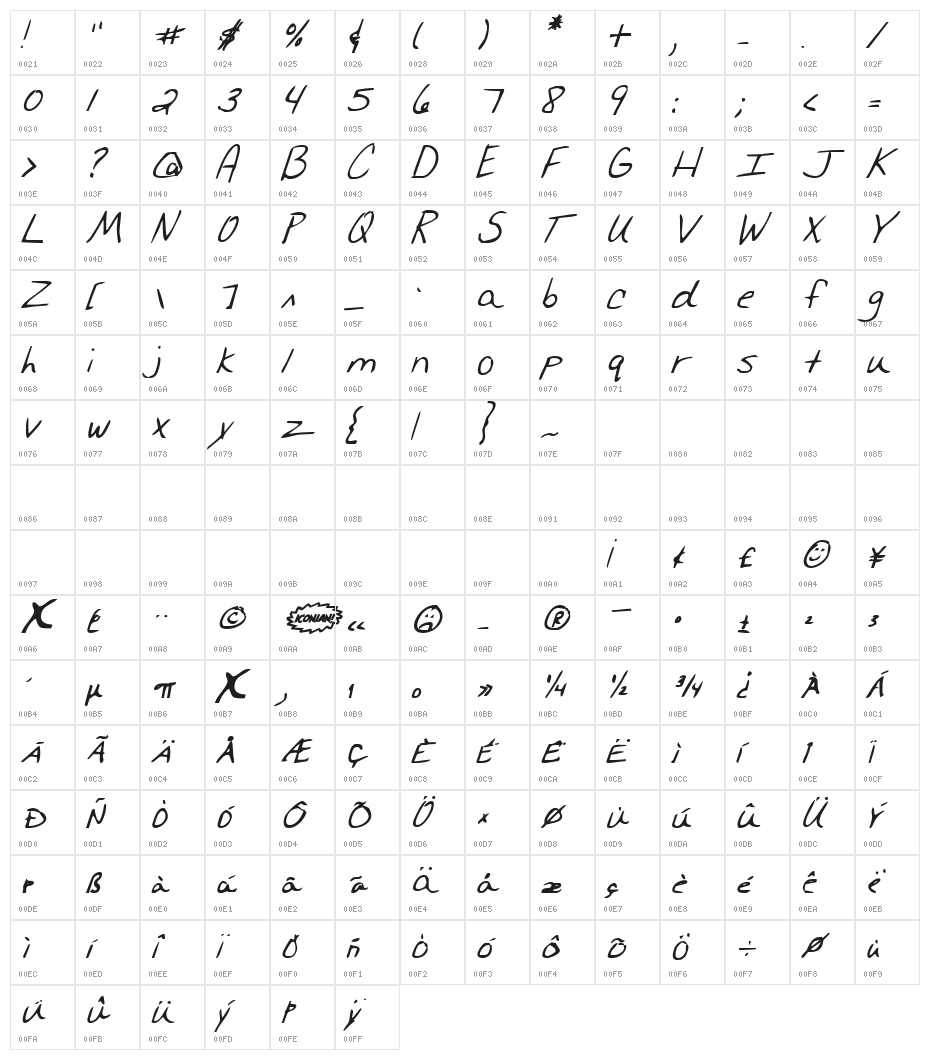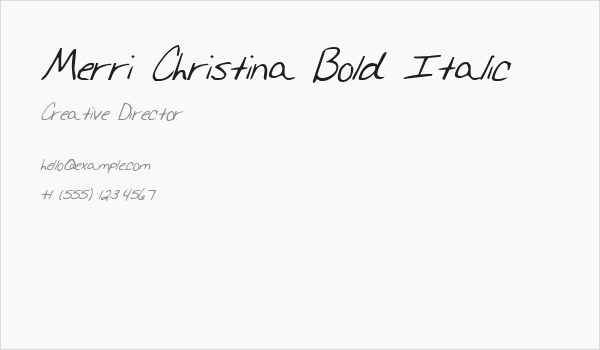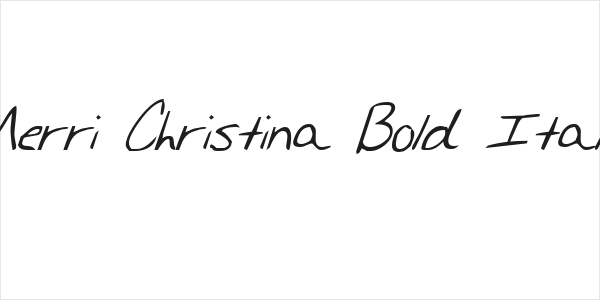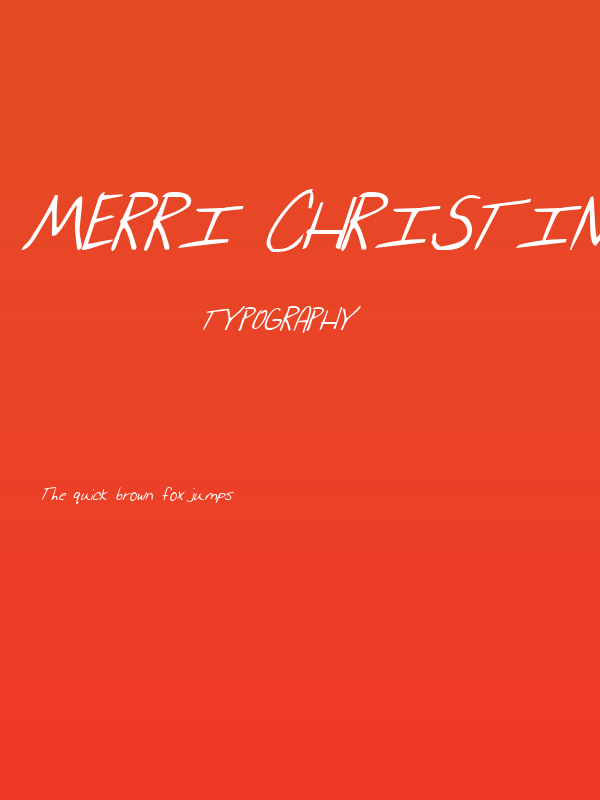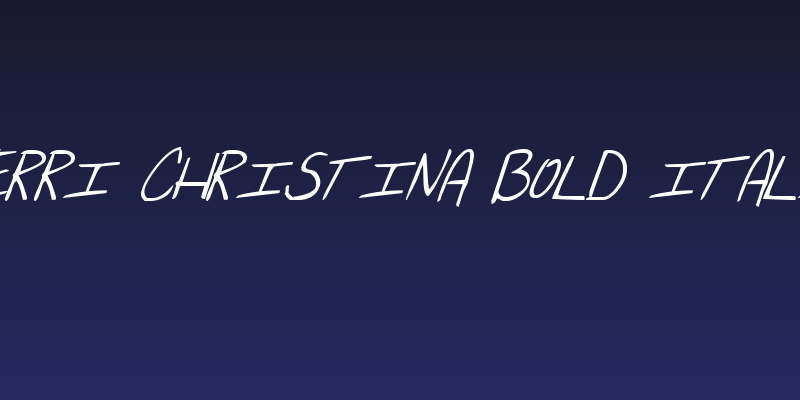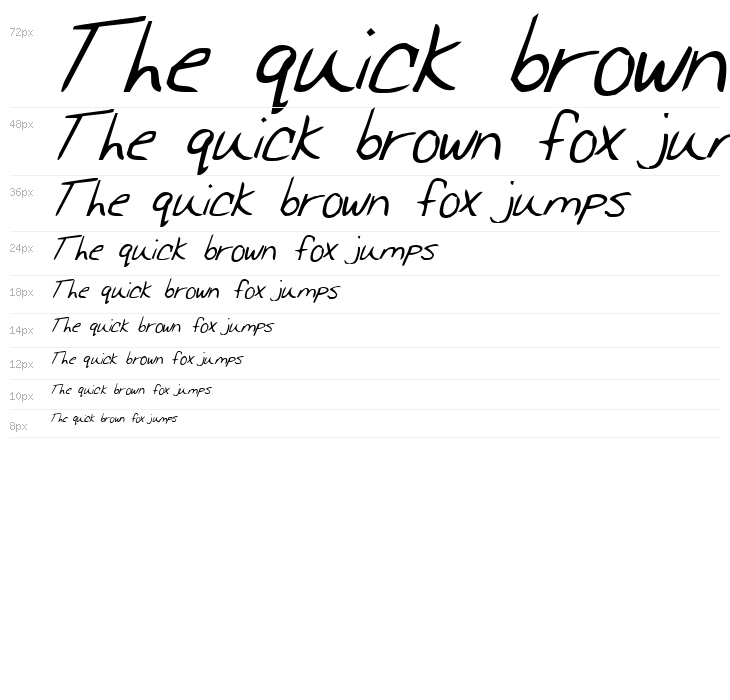
Merri Christina Bold Italic Font
Merri Christina Bold Italic Description
This font exudes a lively and dynamic energy, characterized by its handwritten style that mimics the fluidity and spontaneity of natural handwriting. The letters are slightly slanted, adding a sense of motion and informality. The strokes vary in thickness, providing a medium contrast that enhances readability while maintaining a casual aesthetic. The characters are well-spaced, ensuring clarity and legibility even in smaller sizes. This font is versatile, suitable for projects that require a personal touch or a creative flair, such as invitations, greeting cards, or artistic branding.
Overall StyleCasual, Dynamic
Use CaseHeadlines, Artistic projects, Personal branding
Proposed ProjectsIdeal for invitations, greeting cards, artistic branding, and creative projects.